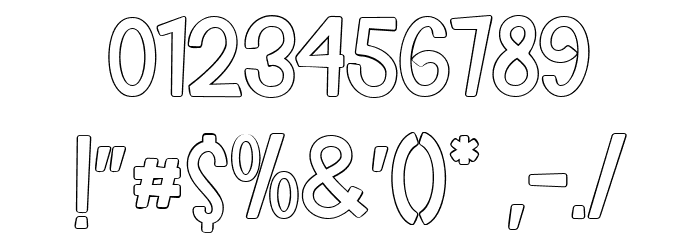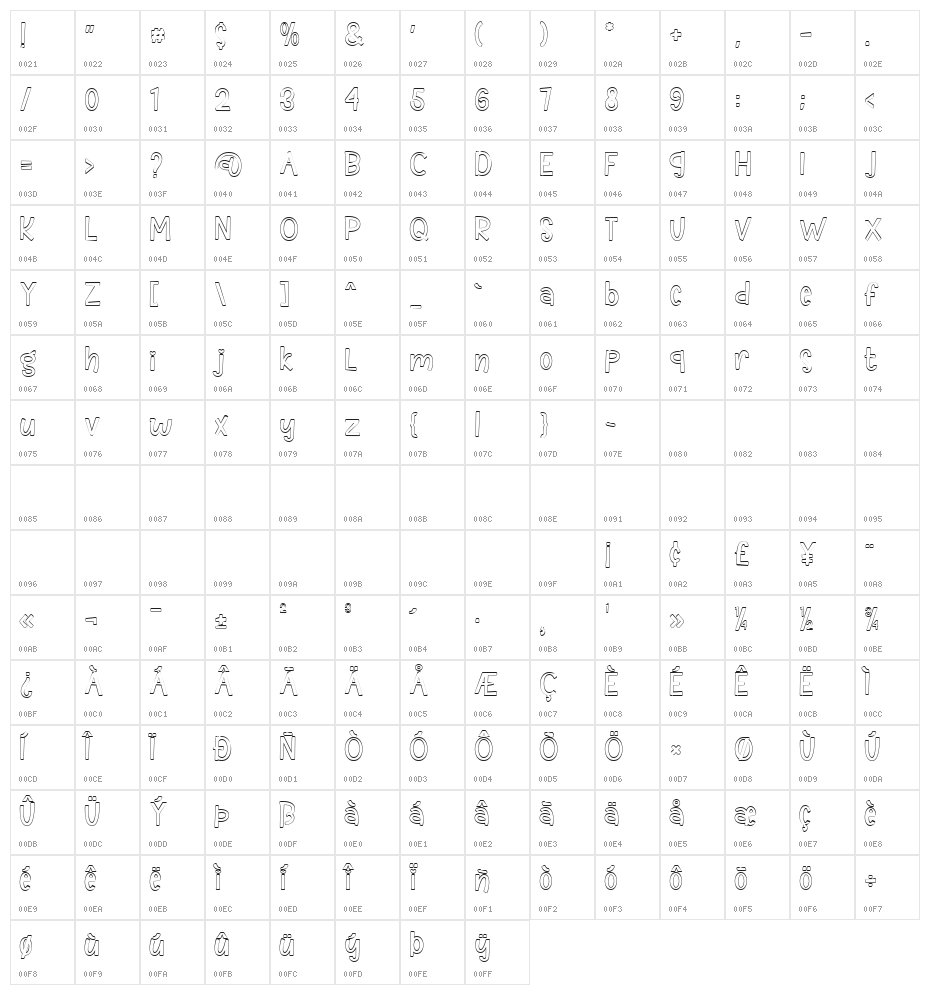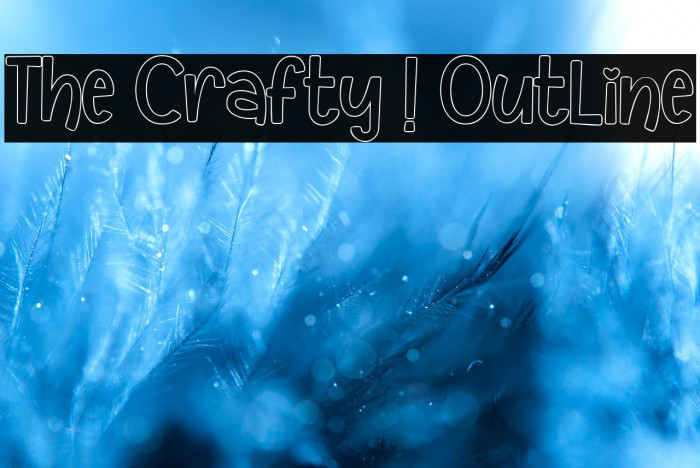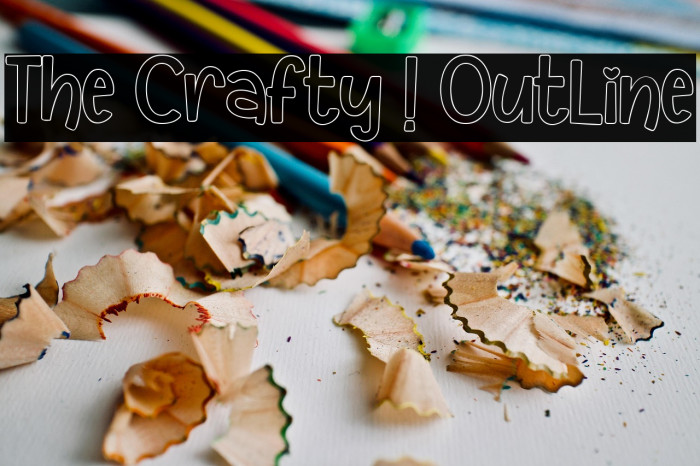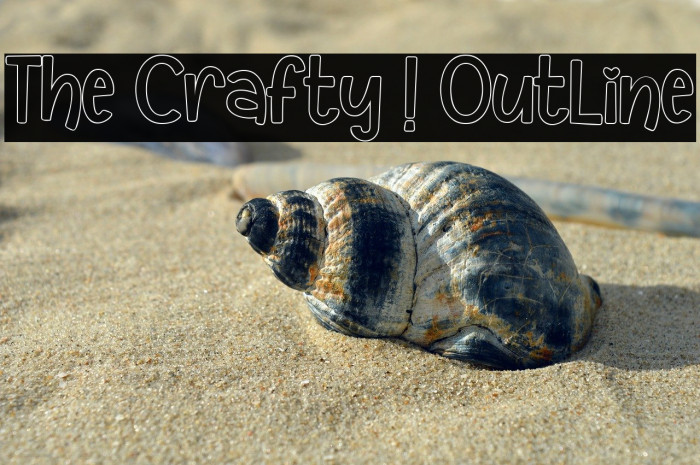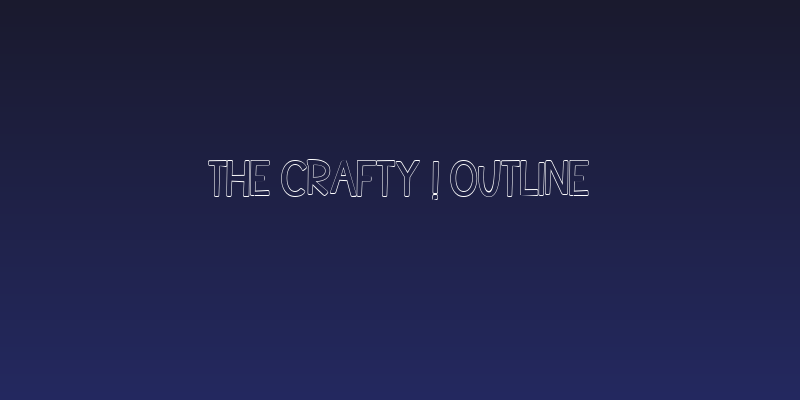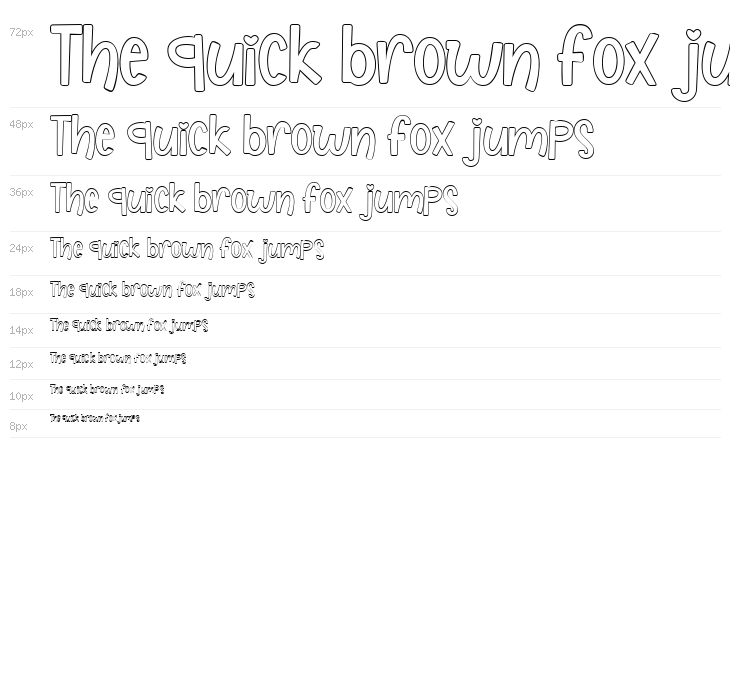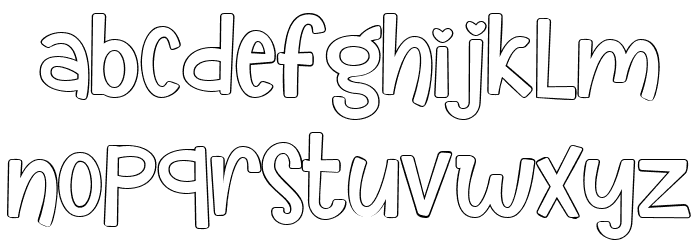
The Crafty ! Outline Font
The Crafty ! Outline Description
This playful and whimsical font features an outline style that gives it a crafty, handmade appearance. The characters are bold and rounded, with a consistent thickness throughout, creating a uniform look. The uppercase and lowercase letters maintain a friendly and approachable vibe, while the numerals and special characters complement the overall design. The font's outline nature makes it ideal for coloring or layering with other design elements, adding versatility to its use.